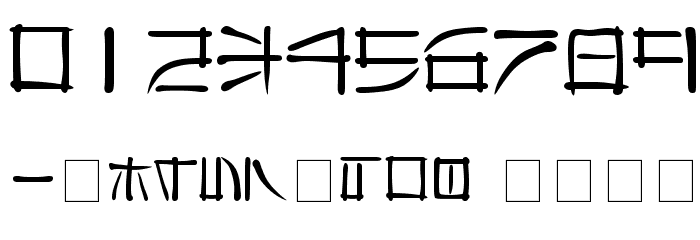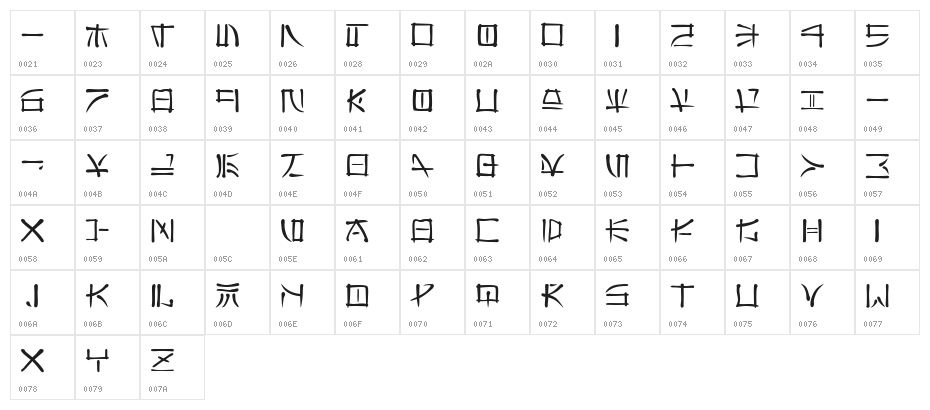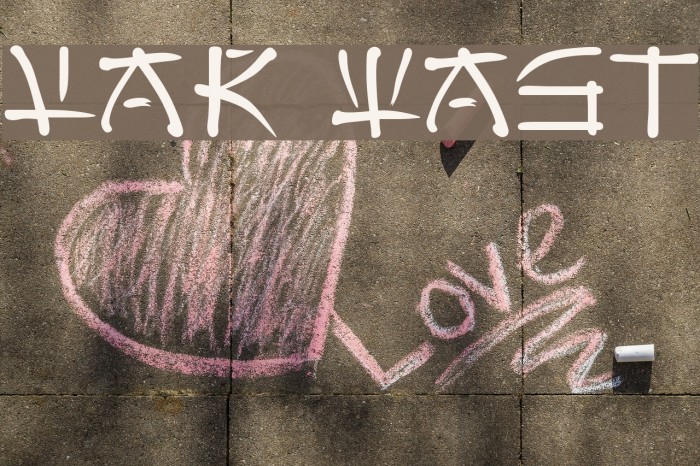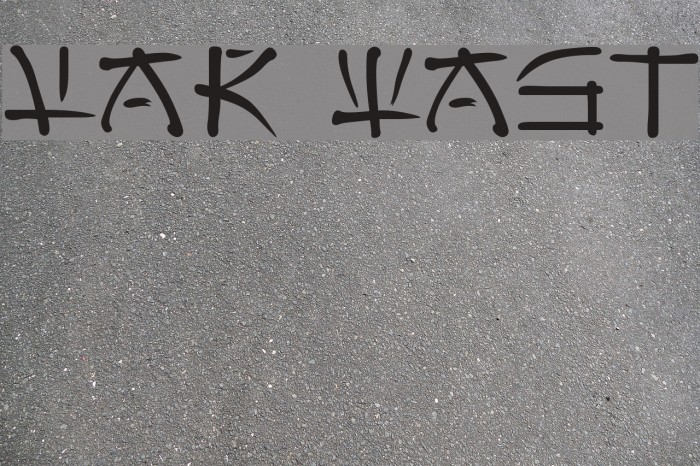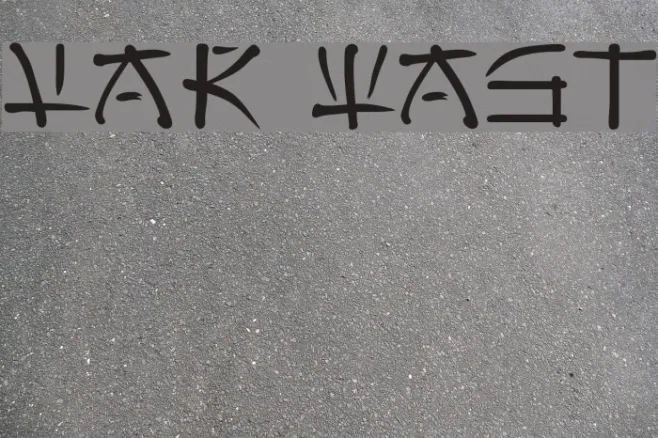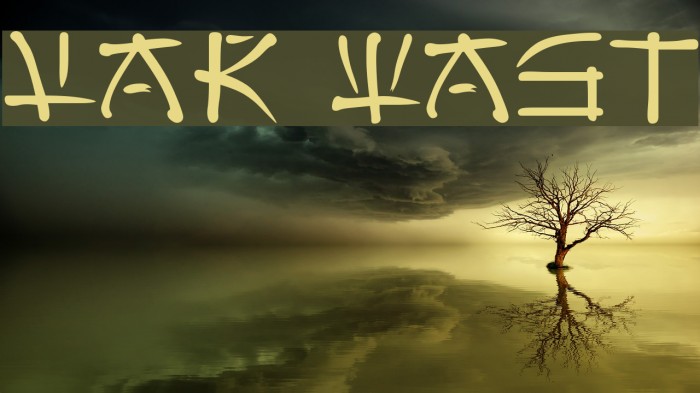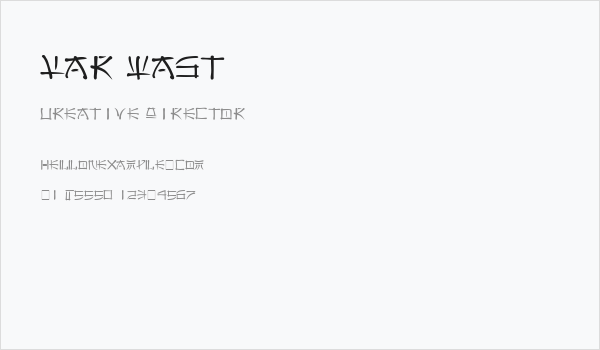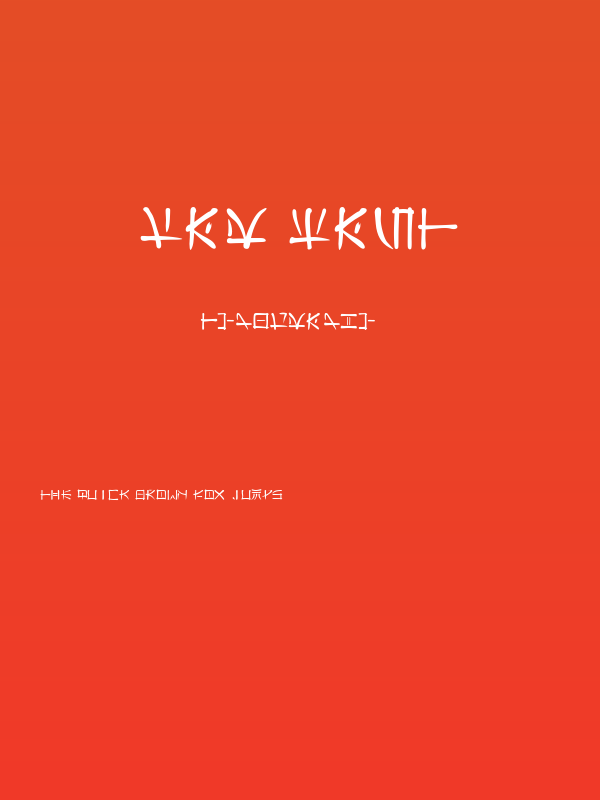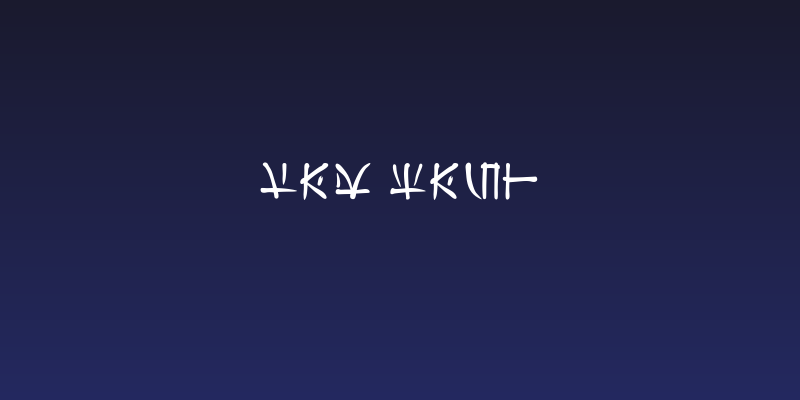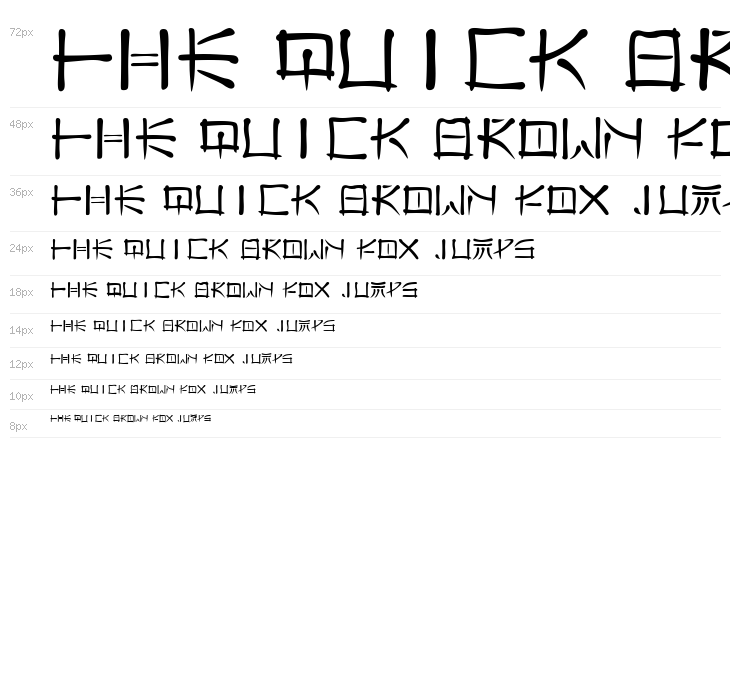
Far East Font
Far East Description
This font features a unique, artistic design that draws inspiration from traditional Far-Eastern calligraphy. The characters are crafted with a brush-like appearance, showcasing strokes that vary in thickness, creating a dynamic and fluid aesthetic. The letters are distinct and bold, with an emphasis on horizontal and vertical lines, giving them a structured yet organic feel. The numerals and special characters maintain this stylistic approach, ensuring consistency across the entire character set. This font is ideal for projects that require an exotic or cultural touch, offering a visually striking option for creative designs.